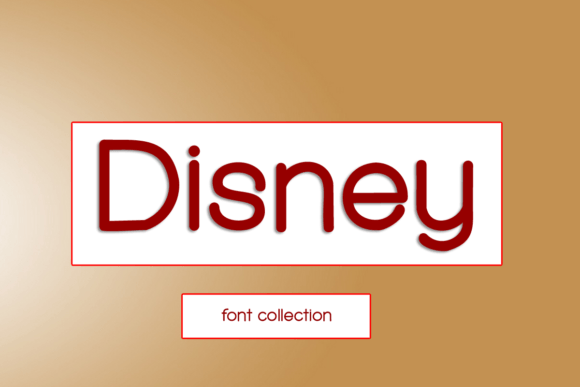
Looking for the perfect font for your fashion projects? Look no further than Disney Font! Created by the talented team at Alfa studio, this friendly and cute sans serif font is the ideal choice for anyone looking to add a touch of magic to their designs.
With its bold lines and whimsical curves, Disney Font is sure to capture the attention of your audience and bring your creative vision to life. Whether you're designing a logo, creating marketing materials, or crafting a social media post, this font is the perfect way to stand out from the crowd and make your message heard.
But don't just take our word for it - try Disney Font for yourself and see the results! With its versatility and style, it's no wonder why Disney Font is one of the best fonts for fashion projects. From elegant and sophisticated to playful and fun, this font can do it all.